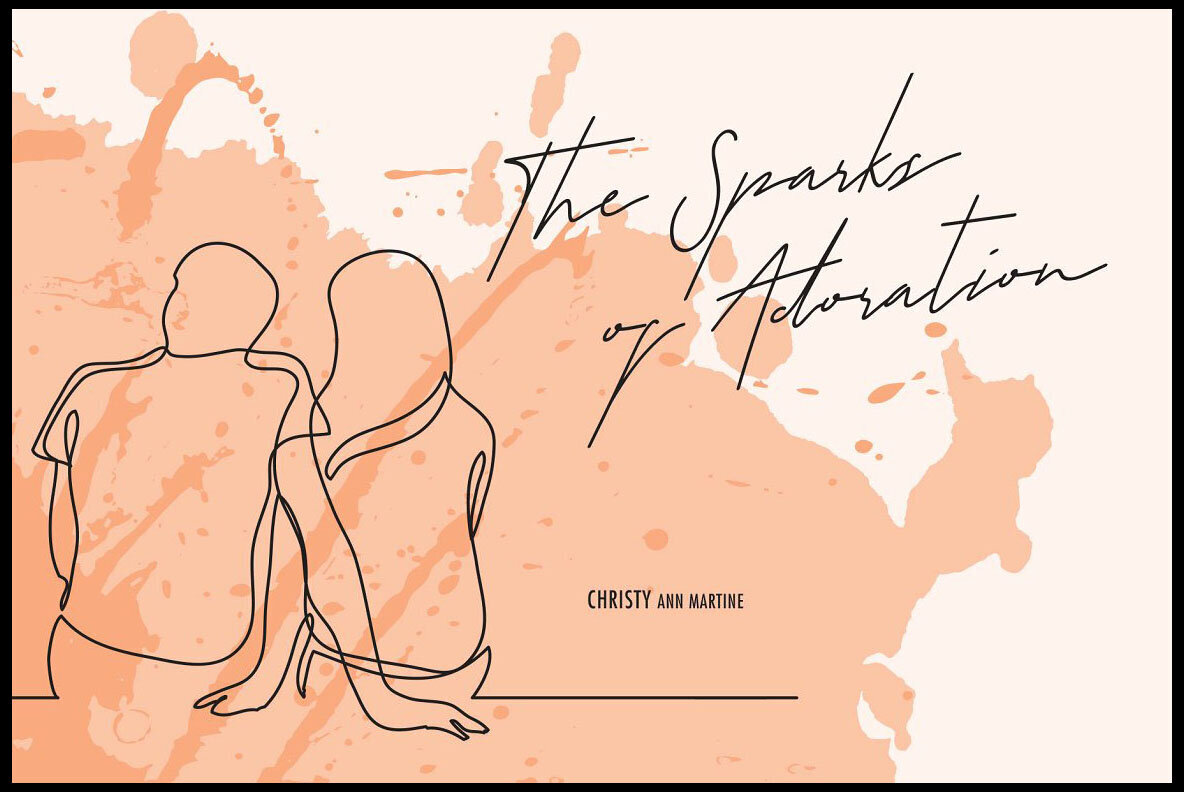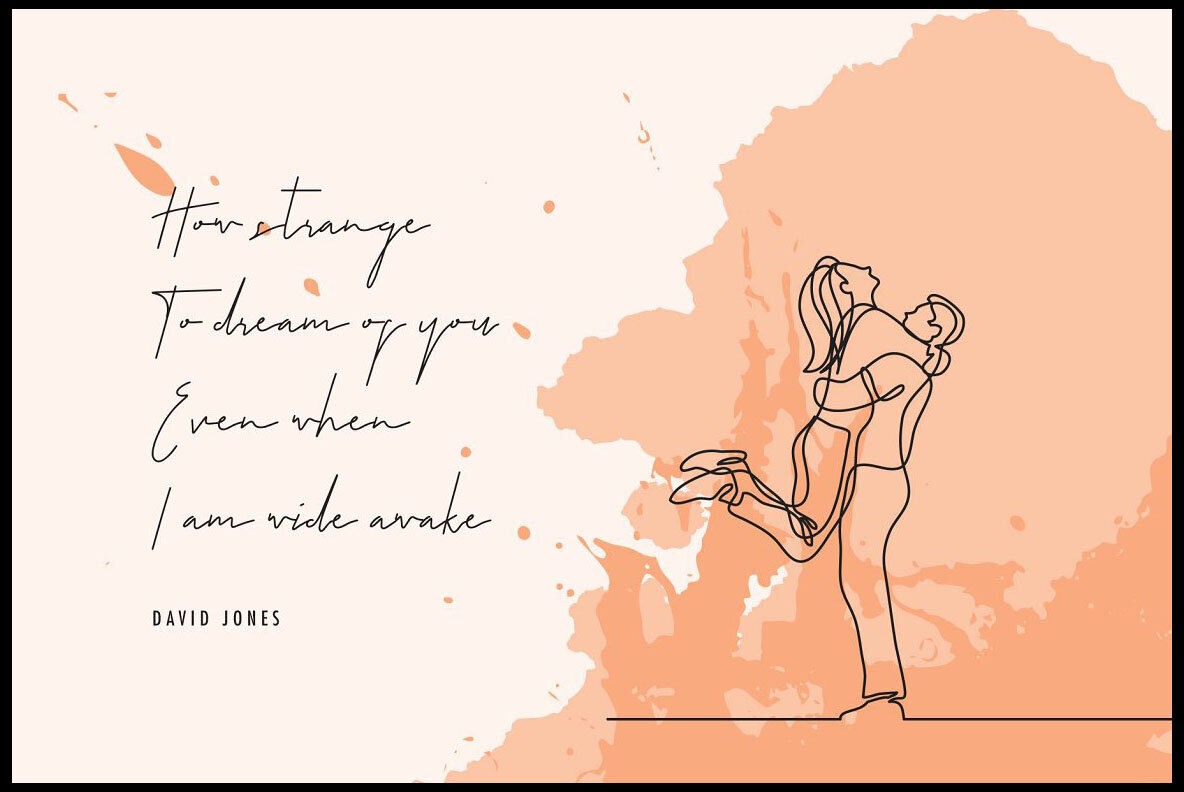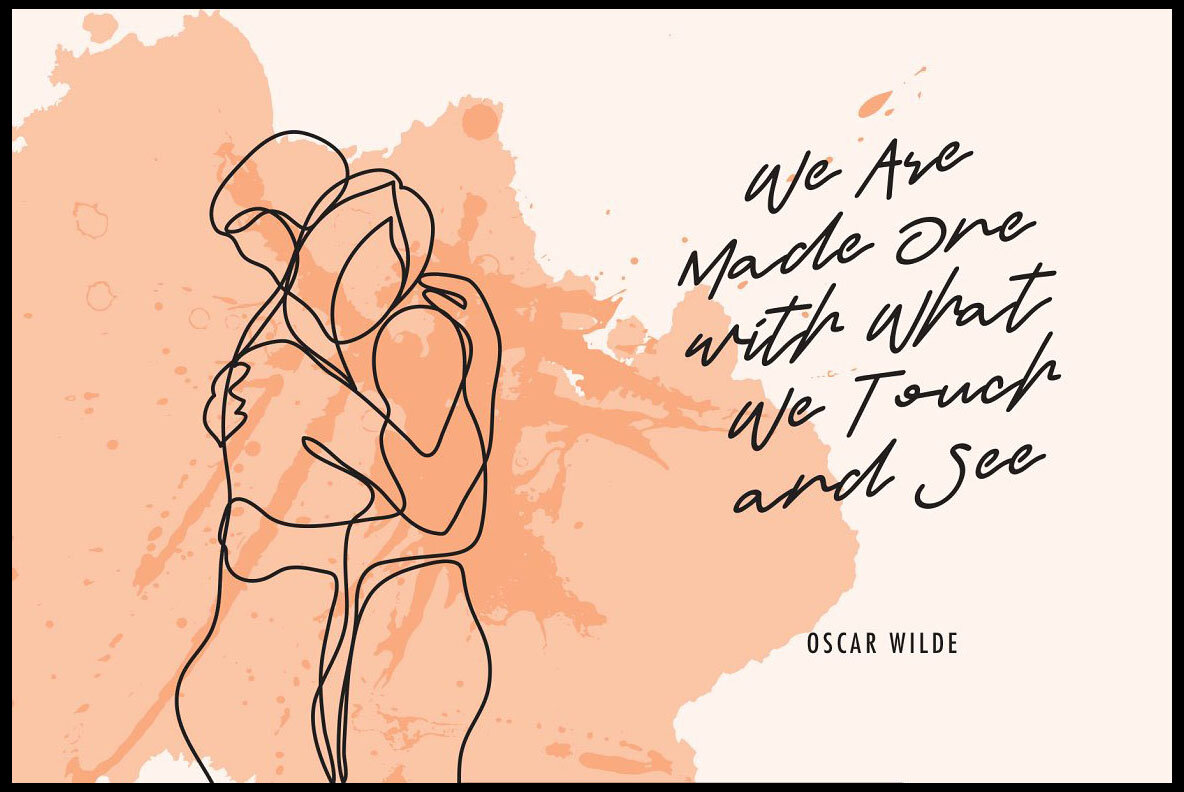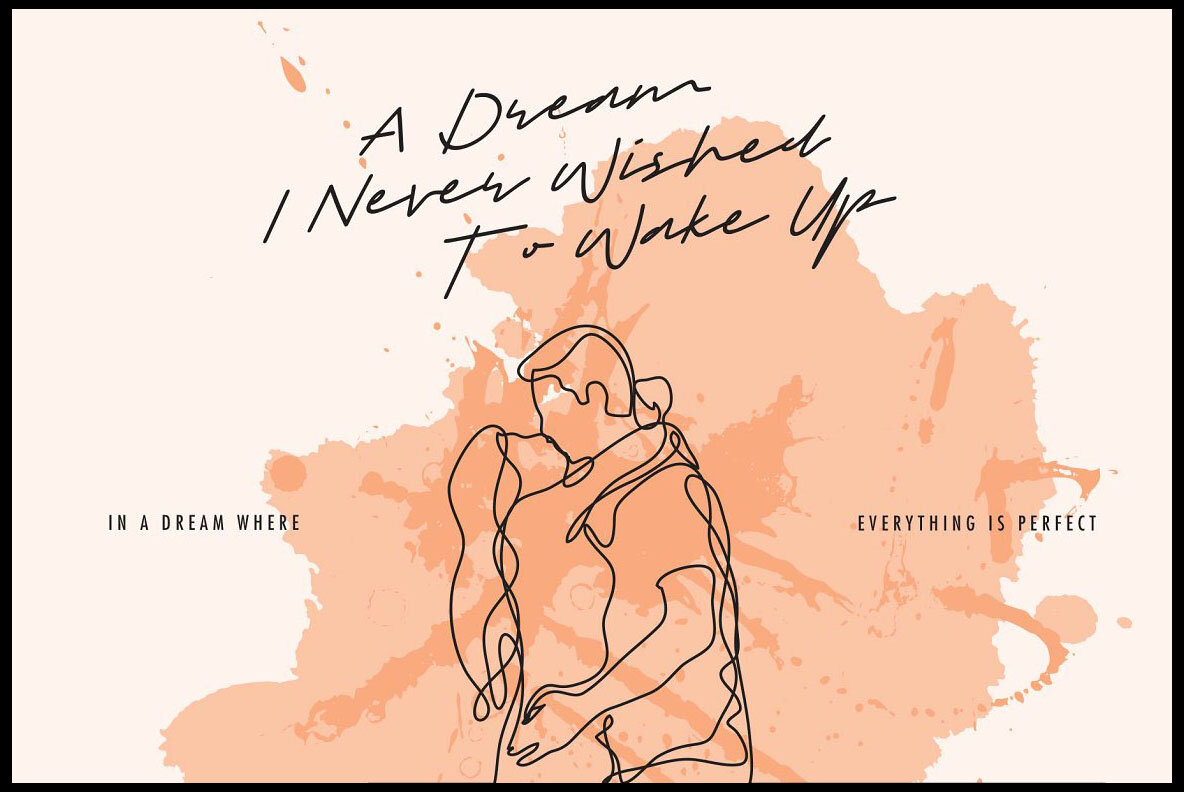
Sam and Sally Font
Introducing a delightful set of fonts crafted with a natural flow and an effortless sensibility. Each font in this collection boasts its own distinct style and writing dynamics, offering a variety of stroke weights to suit your design needs. The fonts feature both upper and lowercase characters, making them versatile and adaptable. This set of five OTF fonts is perfect for a wide range of design projects, including fashion, weddings, blogs, and branding. They truly shine when used for titles and logotypes, lending an air of sophistication and charm to your creations. Embrace the fluid elegance of these naturally flowing fonts and infuse your projects with a touch of grace and personality. Elevate your designs to new heights and captivate your audience with this versatile and stylish font collection.